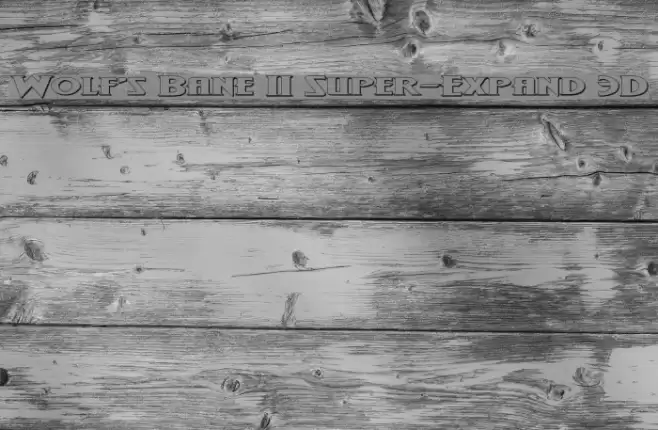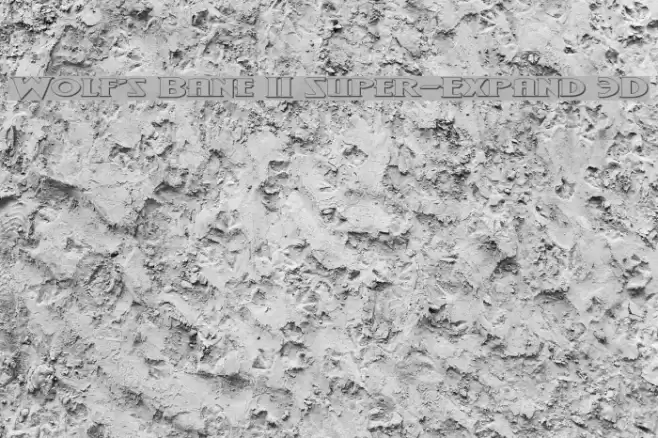
Wolf's Bane II Super-Expand 3D Font
Wolf's Bane II Super-Expand 3D Description
This font features a bold, three-dimensional design with a strong presence. The characters are outlined with a shadow effect, giving them a striking, embossed appearance. The geometric shapes and sharp angles create a futuristic and dynamic look, making it ideal for attention-grabbing headlines or logos. The uppercase letters are particularly prominent, with a consistent width and height that ensures uniformity across the text. The numbers and special characters maintain the same bold style, ensuring a cohesive look throughout any design.
A bold, 3D font with geometric shapes and a shadow effect for a dynamic appearance from Retro fonts.
- Proposed Projects: Ideal for use in logos, posters, video game titles, and any project requiring a bold, futuristic aesthetic.
- Width: Expanded